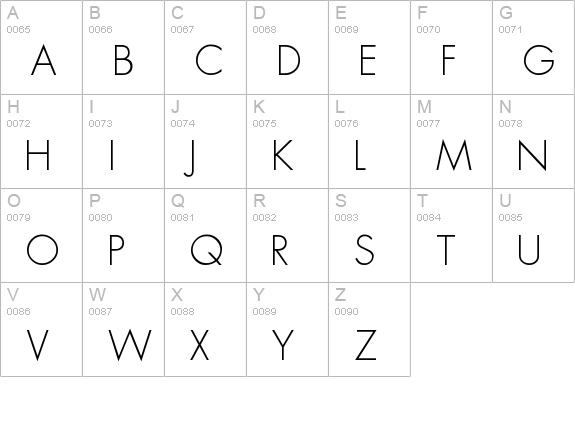
Futura ICG Light is a refined, elegant variant in the Futura typeface family \xE2\x80\x94 well suited to elegant body text, refined sub-headings, and luxury branding.
Futura ICG Light font is a modern and elegant typeface that exudes sophistication and simplicity. With its clean lines and sleek design, this font is perfect for a wide range of design projects, from branding to editorial layouts. The light weight of the font adds a subtle touch of sophistication, making it ideal for conveying a sense of modernity and refinement. One of the best things about Futura ICG Light font is that it is available for free download at FontsMarket.com. This means that you can easily access this stylish typeface without any cost, making it a valuable addition to your font library. Whether you are a graphic designer, a web developer, or a creative professional, Futura ICG Light font offers versatility and style that is sure to enhance your projects. So why wait? Download this free font today and elevate your designs to the next level.